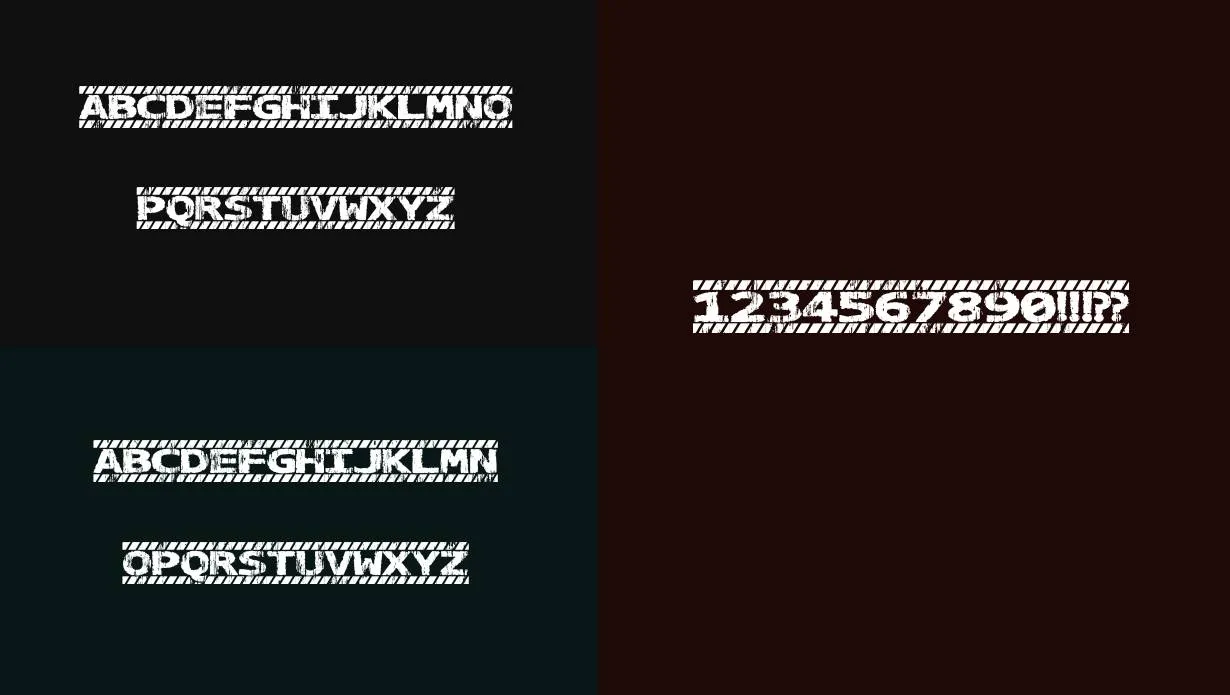
The Caution Font is like a bold warning sign, ensuring your message gets noticed. Its impactful characters are perfect for creating emphasis in graphics with Adobe Photoshop, adding a bold and attention-grabbing touch to web design with CSS, or designing documents that demand attention in MS Word. This font effortlessly ensures your message stands out with a bold and commanding presence.
Name | Caution Font |
Designer | Jayde Garrow |
Style | Display |